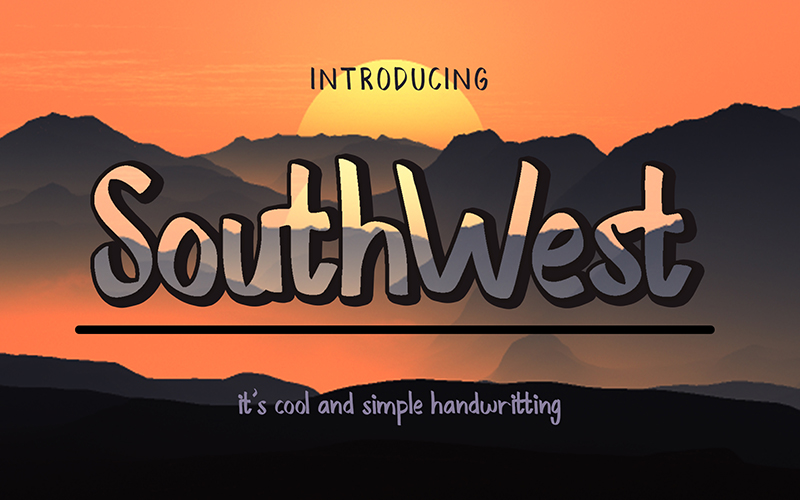
Font name: | Southwest |
Author: | Febryl Arully |
Note by Febryl Arully | |
I designed this font with good and balanced graphics so that the use of the font will look good when composing paragraphs of sentences. I designed this font with great care so that I guarantee that the quality has met the standards that I have tested using testing tools to ensure the quality of this font really meets the standards. You can buy this font uses this link : https://redirect.is/7im2oza |